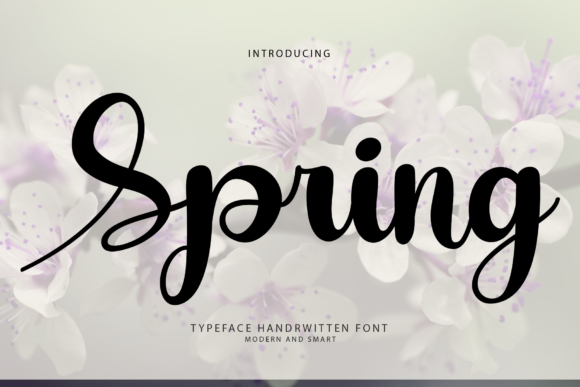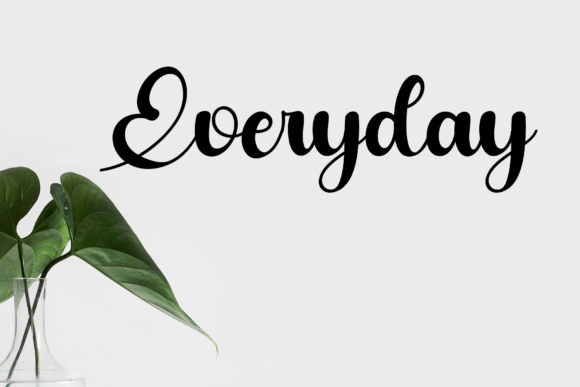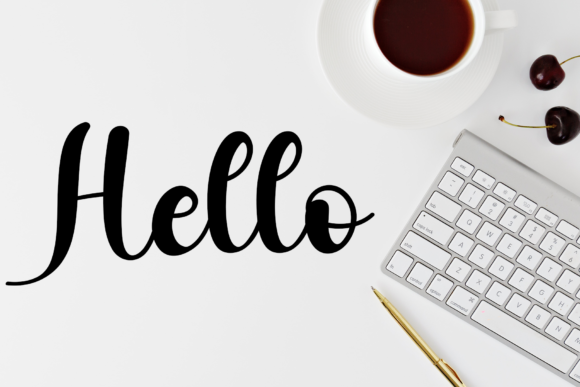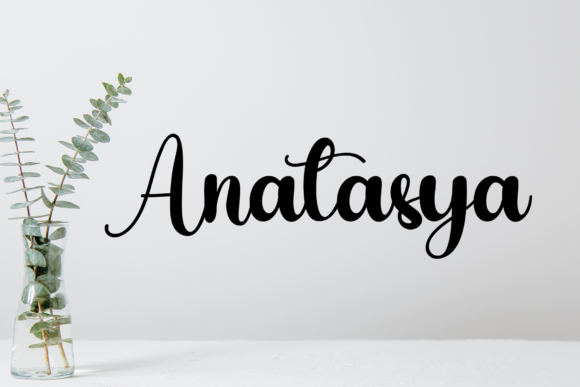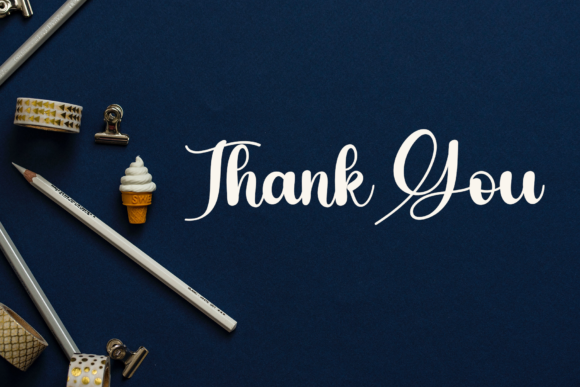
Spring Font
About Spring Font
In the vast landscape of typography, fonts serve as the visual language that communicates the essence of a design. Among the myriad choices available, a font with a unique and round-lettered handwritten style stands out as a versatile and engaging option. One such font that embodies this distinctive quality is “Spring.”
Spring is more than just a typeface; it’s a carefully crafted design tool, offering a unique and round lettered aesthetic that sets it apart. Meticulously created to produce the desired results, this font brings an original and playful touch to any project it graces. With its round letterforms, Spring injects a sense of character and whimsy, making it an ideal choice for writing titles, invitations, letters, and an array of creative products.
The round-lettered design of Spring lends itself to a variety of applications, creating a visual language that is not only distinct but also friendly and approachable. Imagine using Spring to craft eye-catching titles that captivate attention with their playful yet sophisticated style. Envision it on invitations, where the rounded letters create an inviting and warm atmosphere, setting the tone for a memorable event. From personal letters to diverse creative projects, Spring emerges as a versatile tool for infusing a unique and personalized touch.
The careful craftsmanship evident in Spring ensures a cohesive and visually appealing look. Each letter is a testament to the dedication poured into creating a font that goes beyond the conventional, offering a rounded charm that feels both fresh and timeless. The typeface’s versatility makes it suitable for a range of applications, allowing it to adapt seamlessly to various design needs.
Spring is more than an instrument for conveying words; it’s a creative companion that brings a distinct and round-lettered charm to your projects. Its unique style enhances the impact of titles, invitations, letters, and more, making each piece stand out with originality. Allow Spring to be the creative touch that distinguishes your projects with its carefully crafted design, making them memorable and visually captivating.